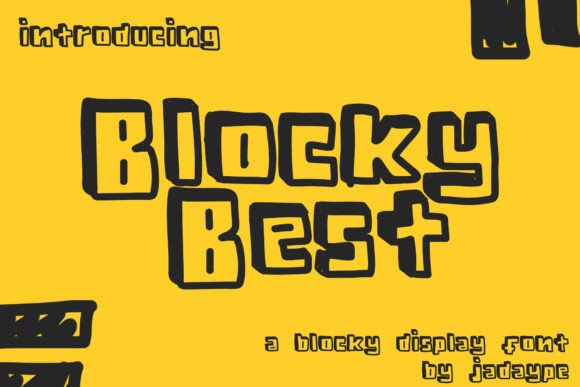
In the realm of typography, one name stands above the rest, captivating the eyes and hearts of designers and enthusiasts alike: Blocky Best Font. This extraordinary creation from the ingenious mind of Jadatype belongs to the illustrious family of display, and it's the ultimate solution for infusing your creative projects with a burst of fun and personality.
Picture this: imagine your designs adorned with the vivacious curves and bold lines of Blocky Best. It's the font that brings a smile to your face and a touch of whimsy to your work. This cheery font is perfect for kids' crafts, where it breathes life into colorful characters and imaginative worlds. It's also the ideal choice for school projects, with its ability to transform dull, dry information into vibrant, attention-grabbing visuals and assignments.
But Blocky Best's talents don't end there. This font excels in the world of DIY projects, helping you craft unique and eye-catching designs that reflect your unique style. Whether you're creating cards, invitations, or posters, Blocky Best lends its charm, ensuring your designs stand out from the crowd.
Visualize the impact of your designs with Blocky Best. Its bold presence commands attention, while its friendly spirit creates a sense of warmth and cheer. Your packages will capitivate customers with its unique, eye-catching designs. Your posters will resonate with audiences, drawing their eyes and hearts to your message. Your presentations will come alive, engaging your audience with the vibrance of Blocky Best.
With Blocky Best, your words take flight, finding their perfect perch on any medium. Whether it's your latest blog post, the catchy new ad campaign, or simply a heartfelt note to a friend, this font lends its charm and versatility, ensuring your message shines through with a distinct panache.
In the tapestry of your creative endeavors, Blocky Best is the vibrant thread that ties everything together. It's the font that breathes life into your designs, attracting eyes, touching hearts, and leaving an indelible mark on the world.